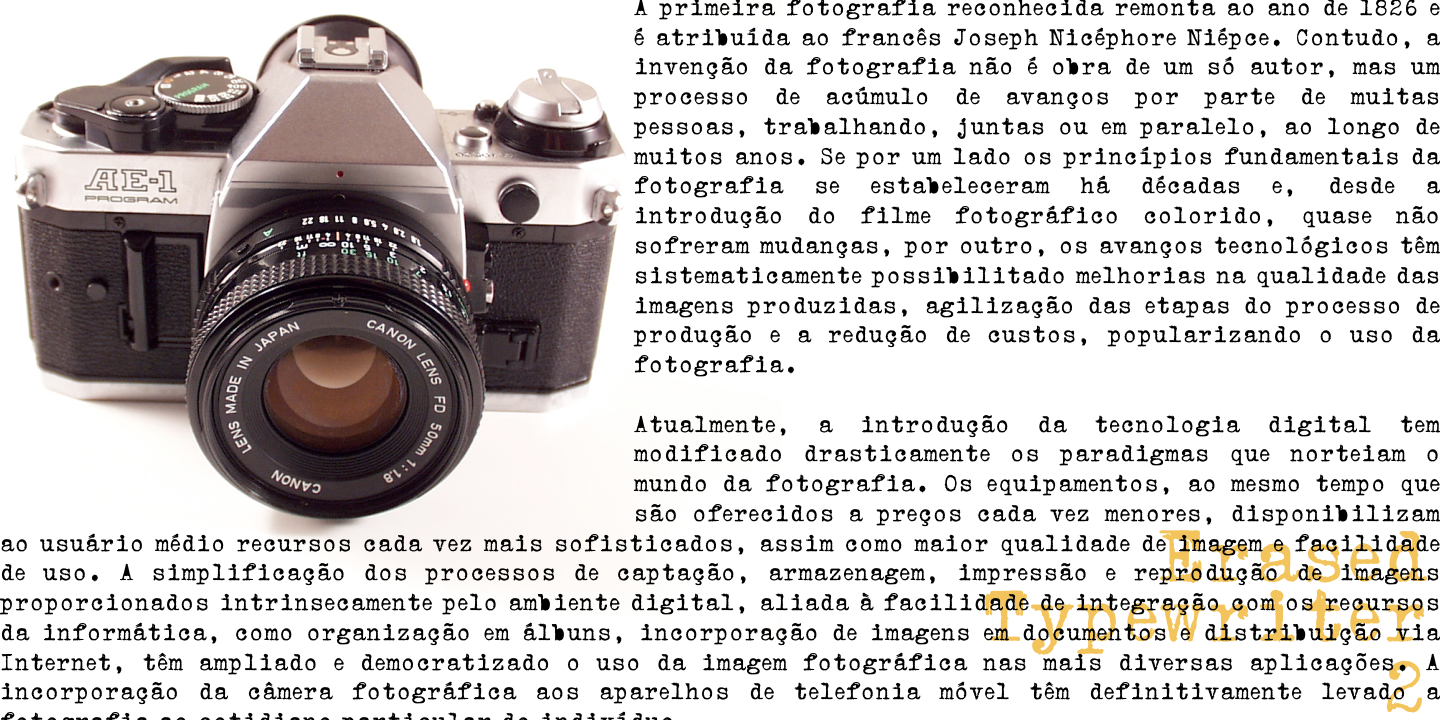
The Erased Typewriter 2 Font is perfect for vintage mystery novels, detective story covers, distressed document designs, retro journalism materials, old newspaper headlines, weathered manuscript reproductions, antique office aesthetics, historical fiction publications, noir film titles, and atmospheric thriller graphics.
What makes the Erased Typewriter 2 Font exciting is its haunting ability to tell stories of forgotten documents and mysterious communications through deliberately weathered letterforms that capture the essence of abandoned typewriters and faded carbon copies. This evocative typeface features worn edges, missing ink patches, and authentic aging effects that create an atmosphere of intrigue, nostalgia, and untold secrets. Each character appears to have survived decades in dusty archives, carrying the weight of forgotten stories and the mysterious charm of documents that time has partially erased but never fully silenced.
The Erased Typewriter 2 Font family includes regular, bold, light, and heavily distressed versions, along with vintage symbols, typewriter ornaments, and aged decorative elements that enhance its atmospheric appeal across various retro and mystery design applications.
Whether you're creating vintage publishing materials or designing atmospheric mystery content, Erased Typewriter 2 Font Free Download delivers maximum authenticity and genuine vintage typewriter character. Its expertly aged letterforms ensure clear readability while maintaining that essential weathered quality that speaks to readers seeking authentic vintage atmosphere and mysterious storytelling. The font's vintage features include contextual alternates, distressed ligatures, and aging variations that automatically create authentic typewriter manuscript aesthetics. Mystery writers and vintage design specialists consistently choose this font for projects requiring genuine historical authenticity and atmospheric vintage appeal. The Erased Typewriter 2 Font transforms ordinary text into intriguing expressions of forgotten history, making it an essential artifact in any designer's vintage typography archive.